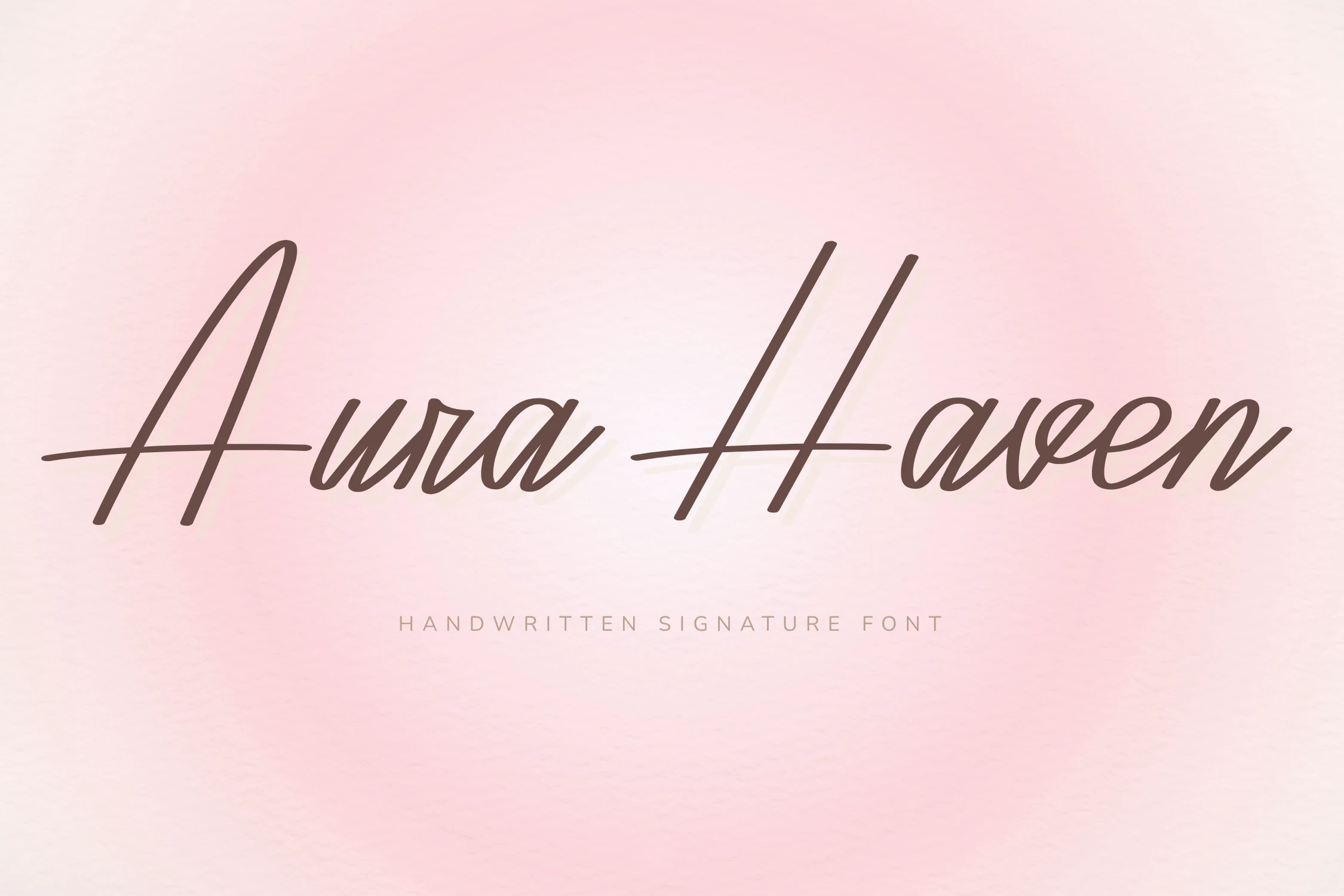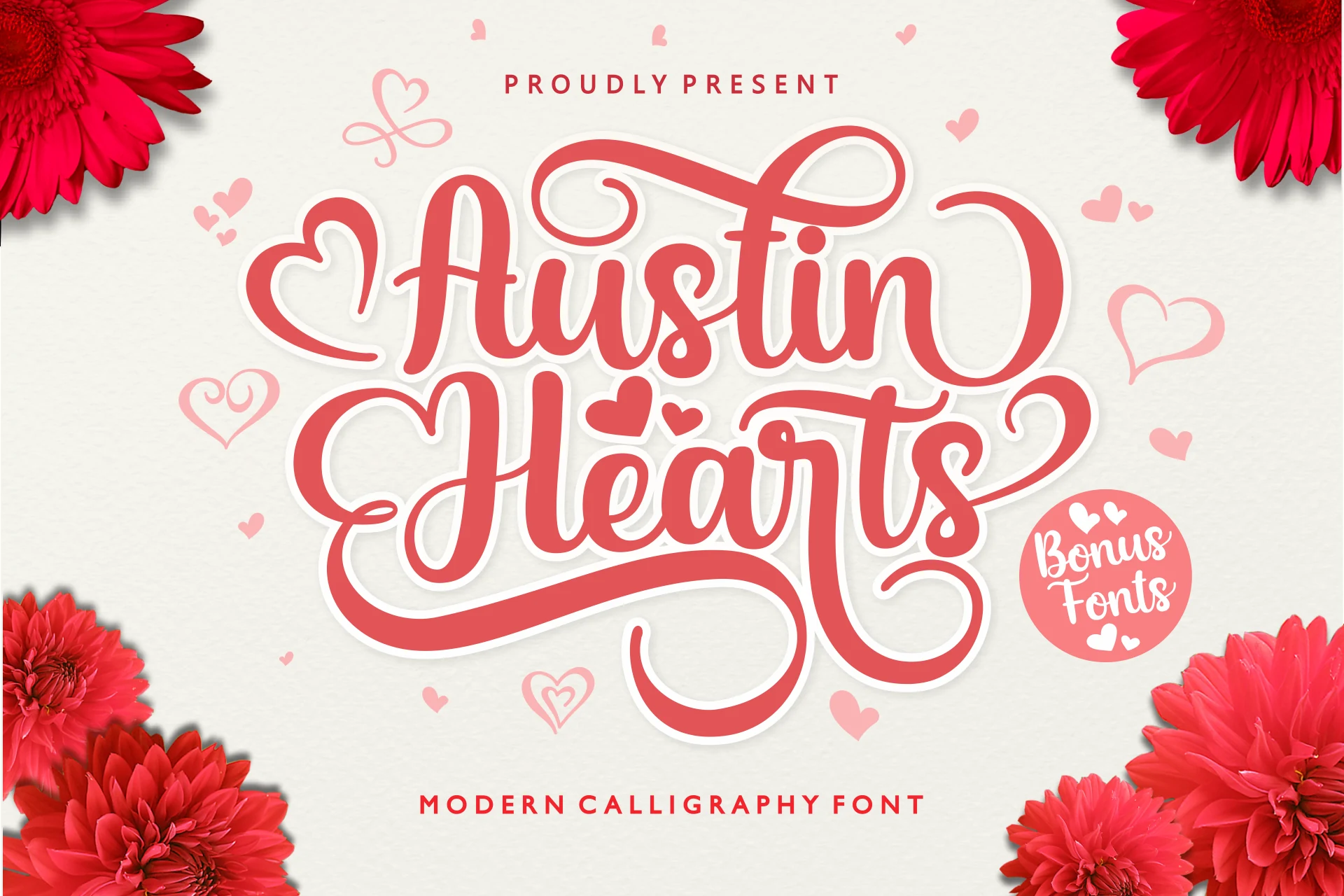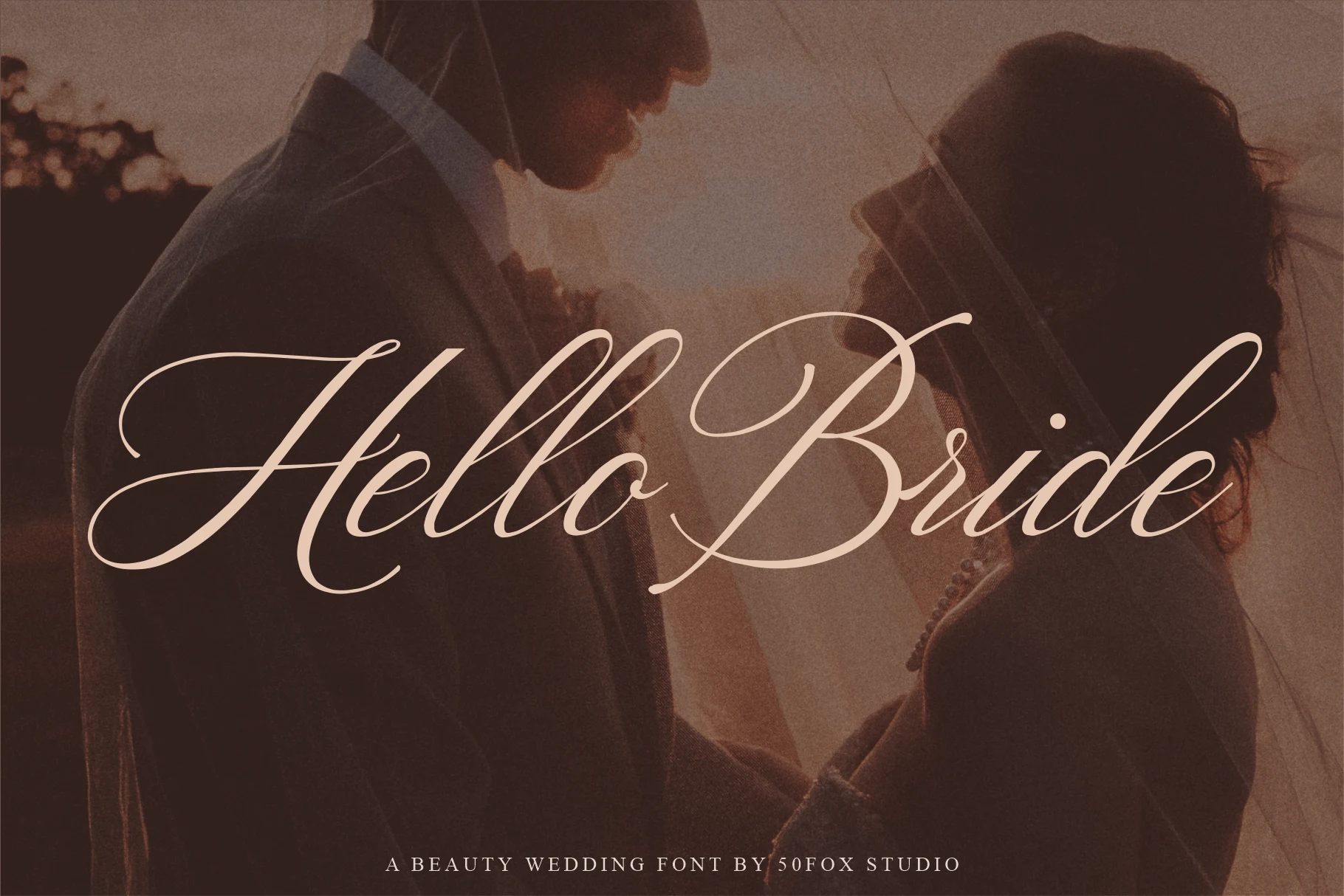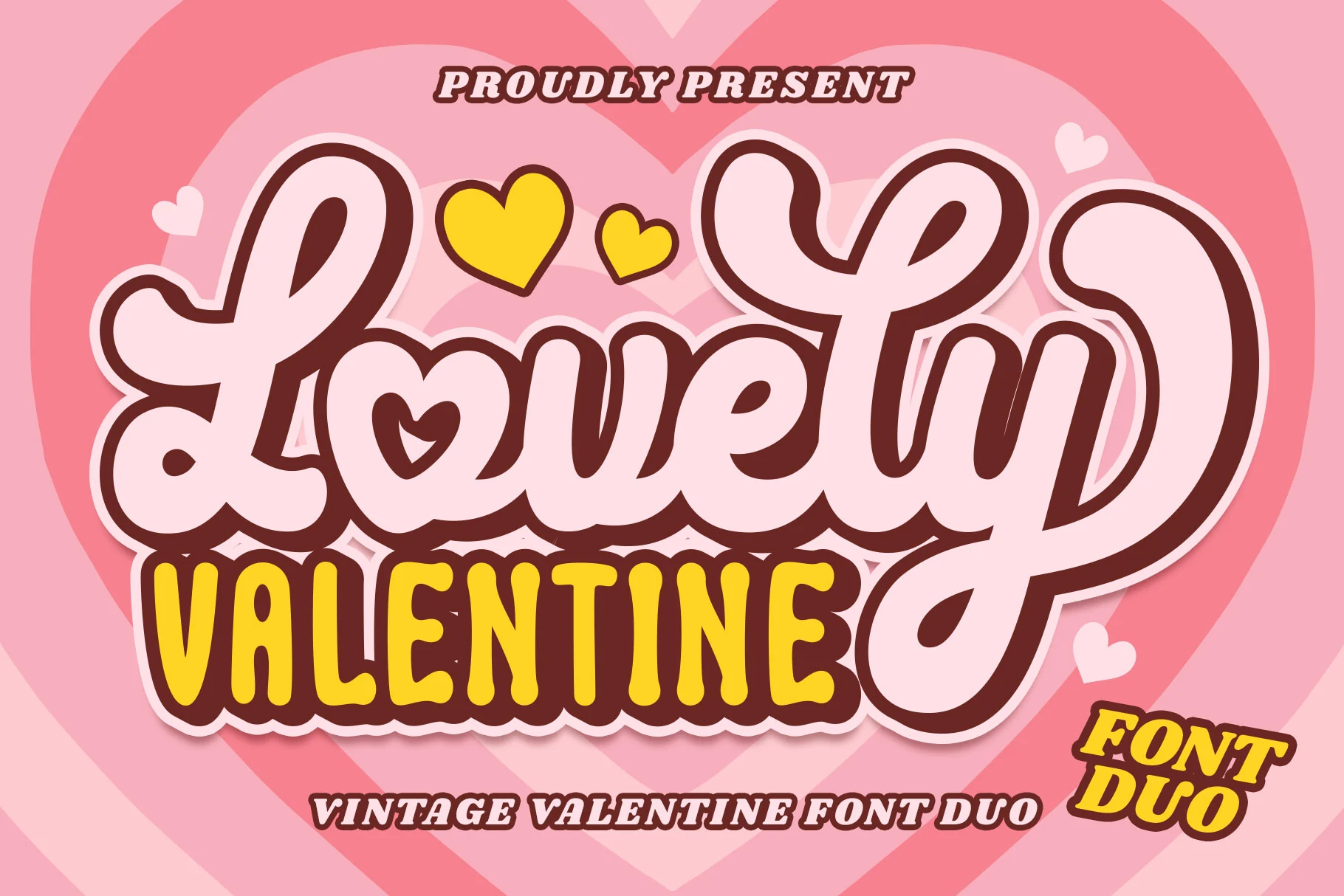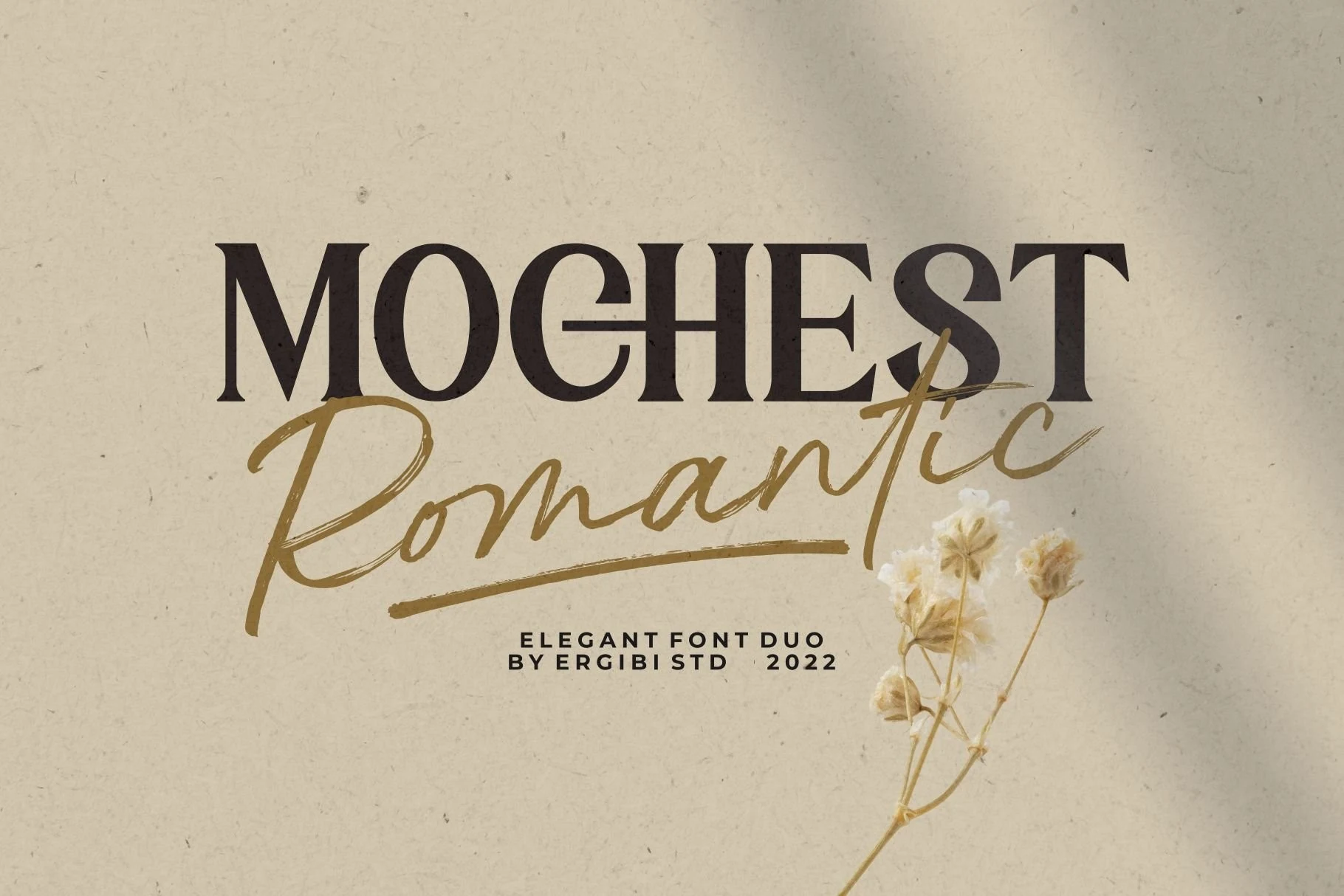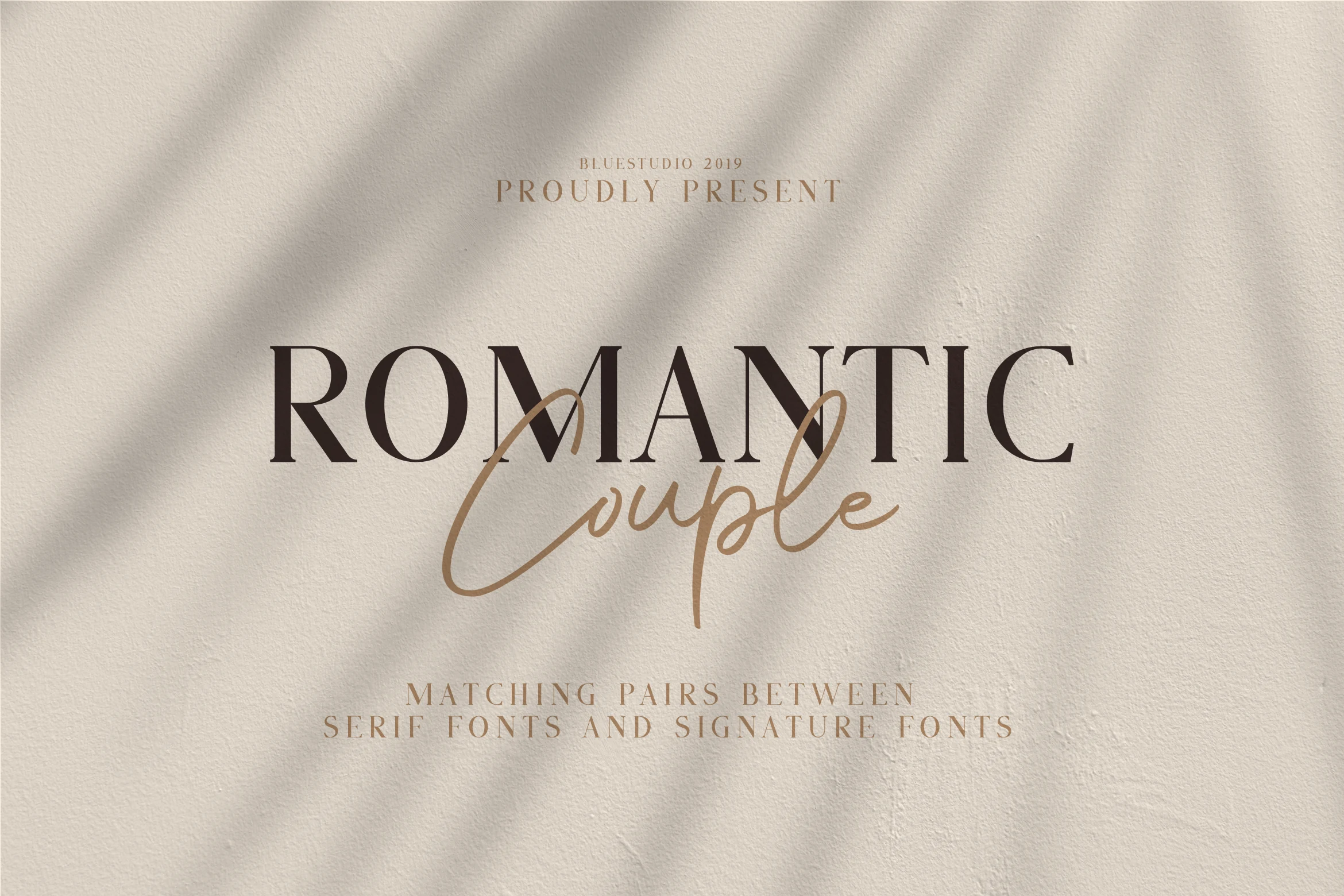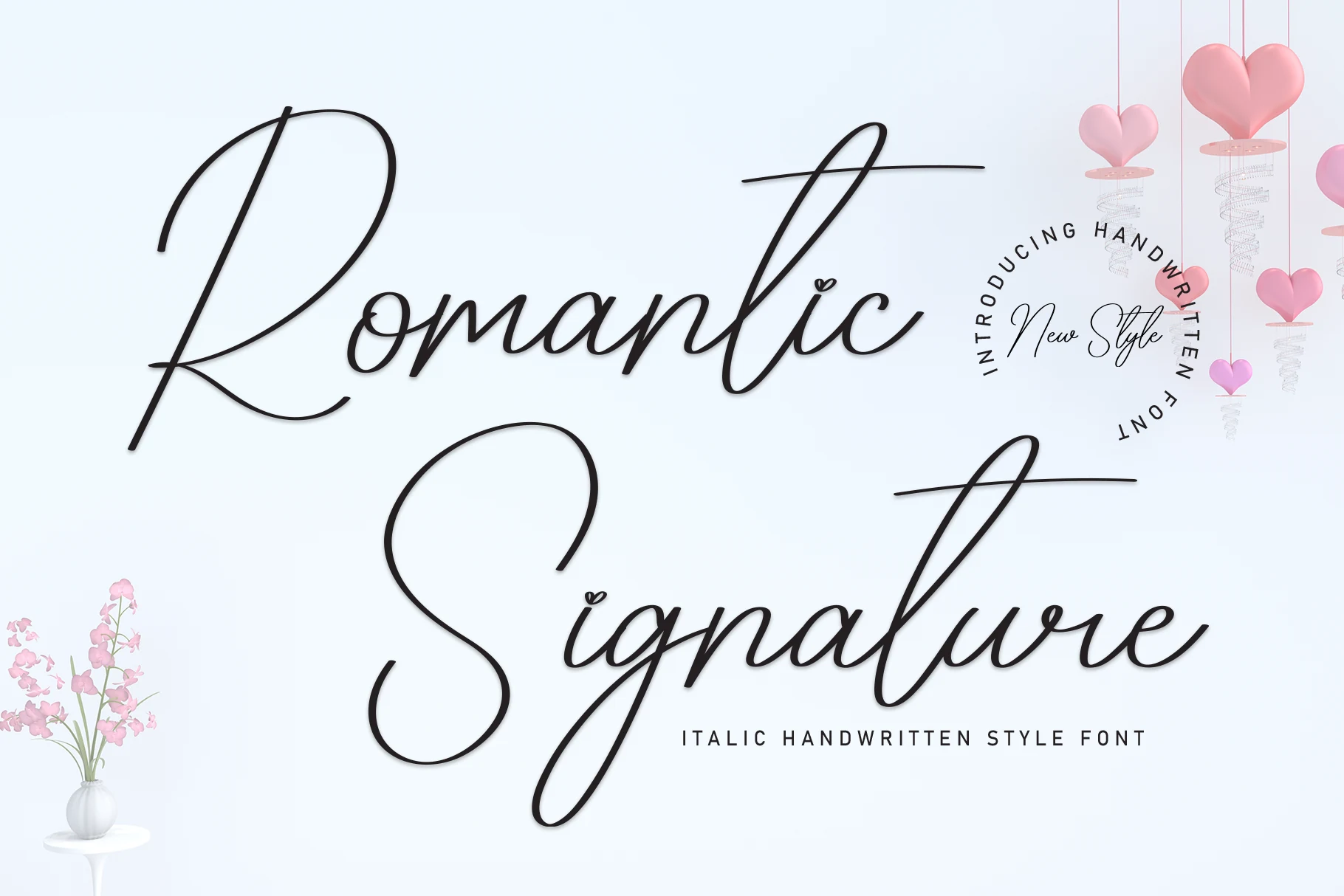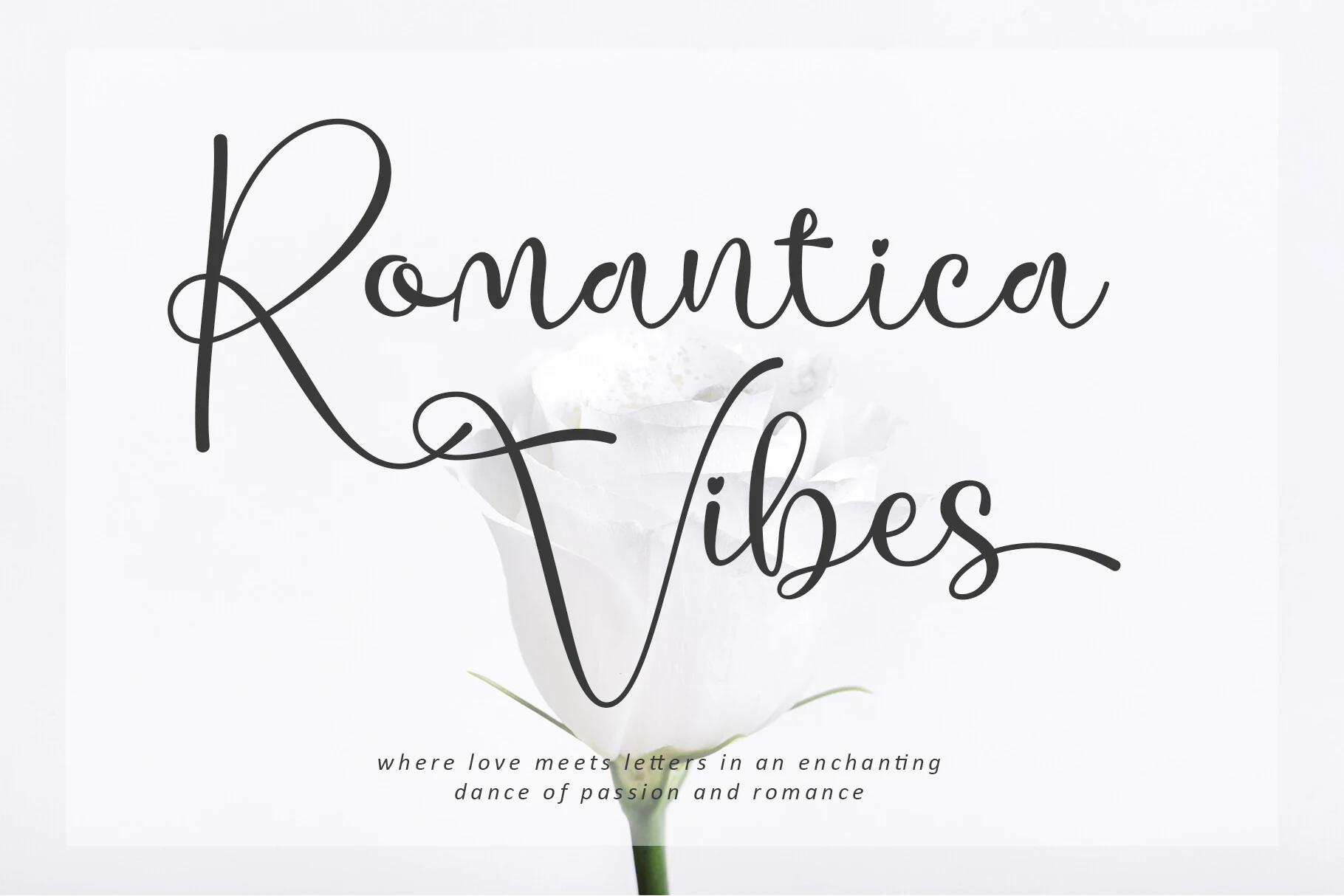
Preview collage featuring 35 romantic font covers with elegant script typography, wedding calligraphy, handwritten lettering, decorative swashes, and feminine love-themed designs.